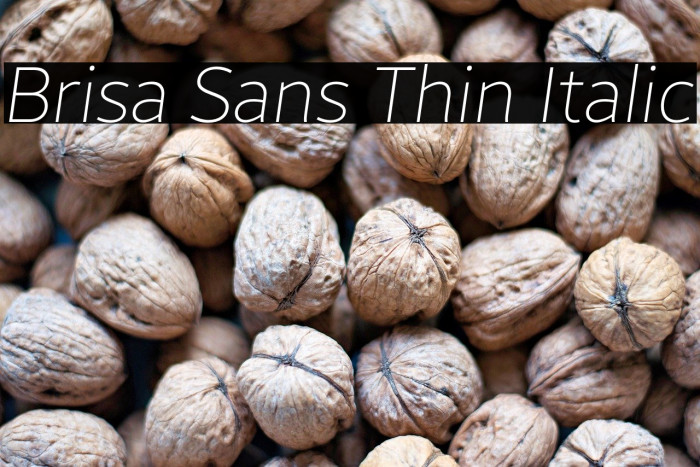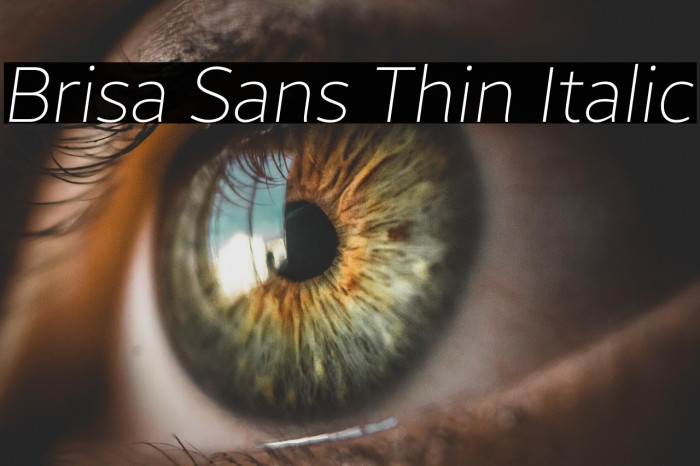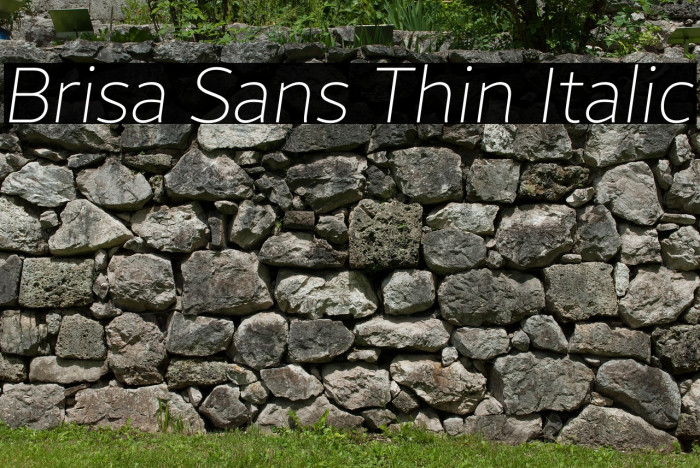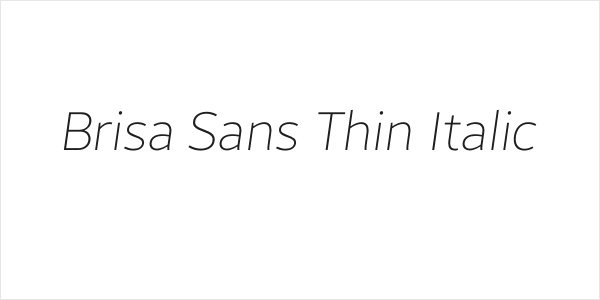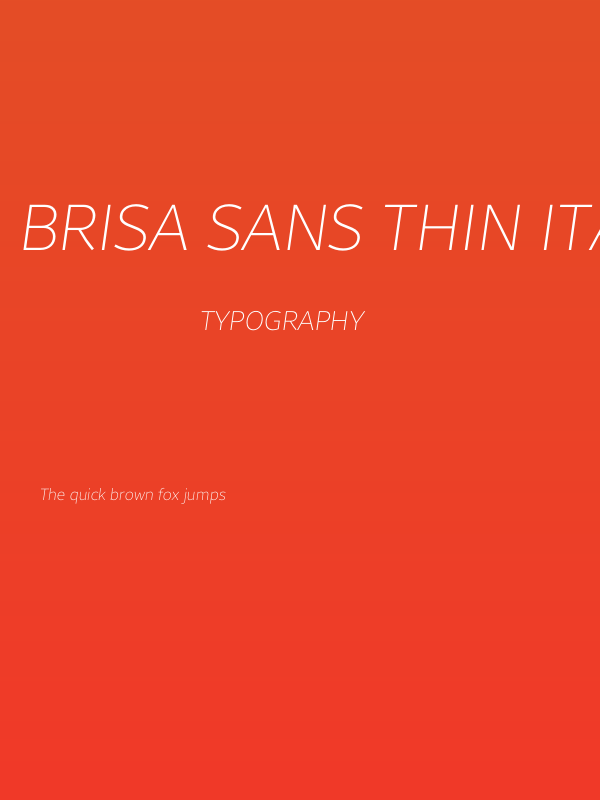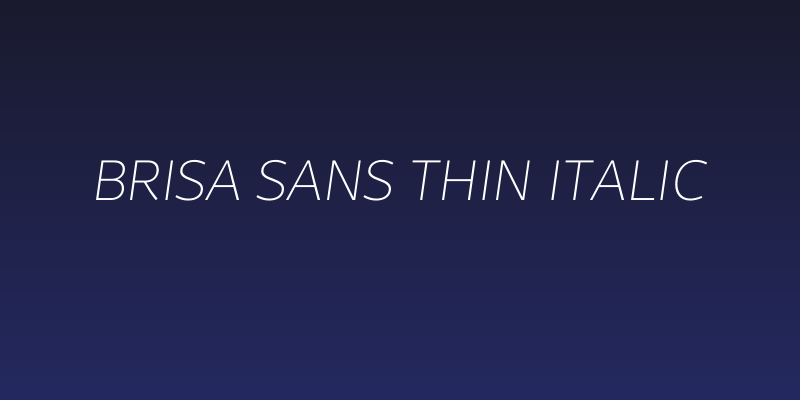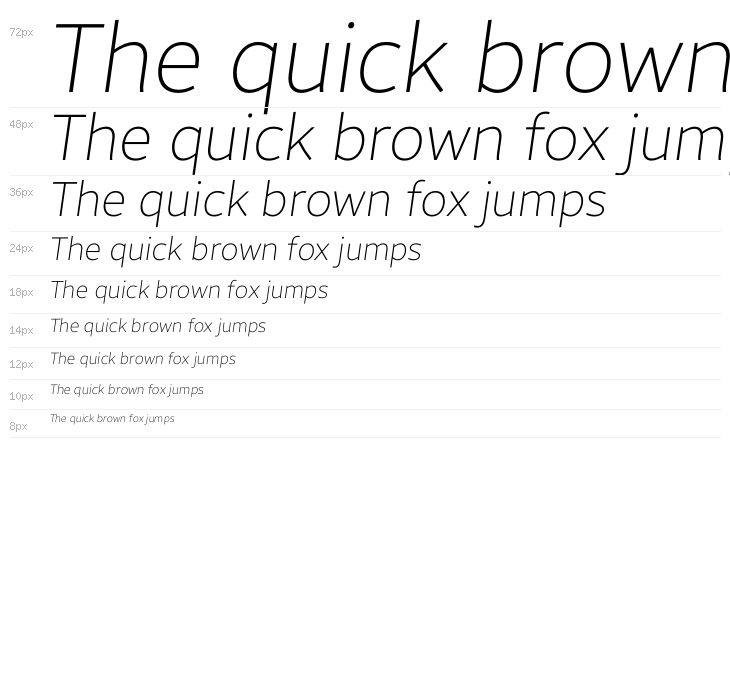
Brisa Sans Thin Italic Font
Brisa Sans Thin Italic Description
This font features a sleek, modern design with a thin and elegant structure. Its sans-serif style is characterized by clean lines and a subtle italic slant, giving it a sophisticated and contemporary appearance. The characters are evenly spaced, providing a balanced and airy feel. The thin strokes contribute to a minimalist aesthetic, making it suitable for a variety of design applications. The font maintains clarity and readability, even at smaller sizes, due to its well-defined letterforms and consistent weight distribution.
| Proposed Projects | Ideal for modern branding, minimalist design projects, fashion magazines, and elegant website headers. |